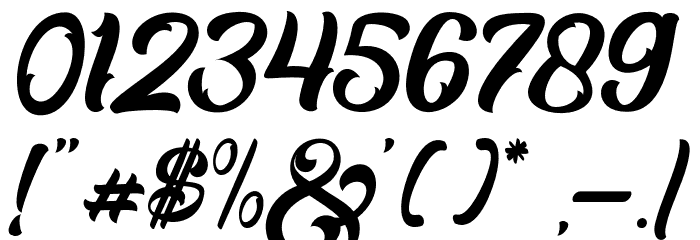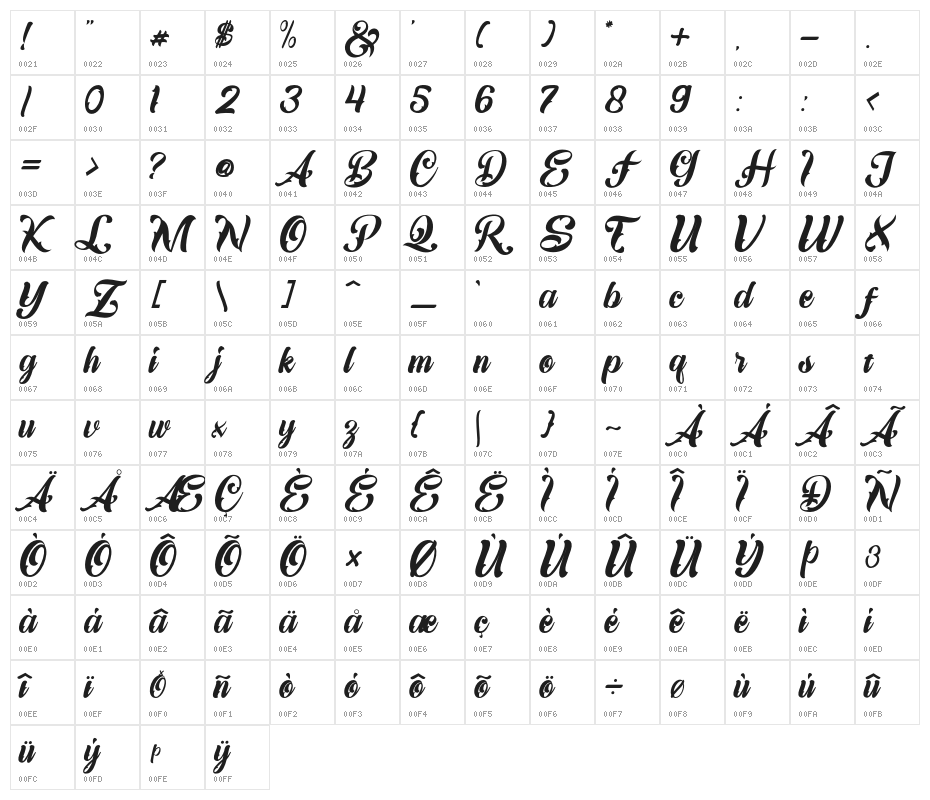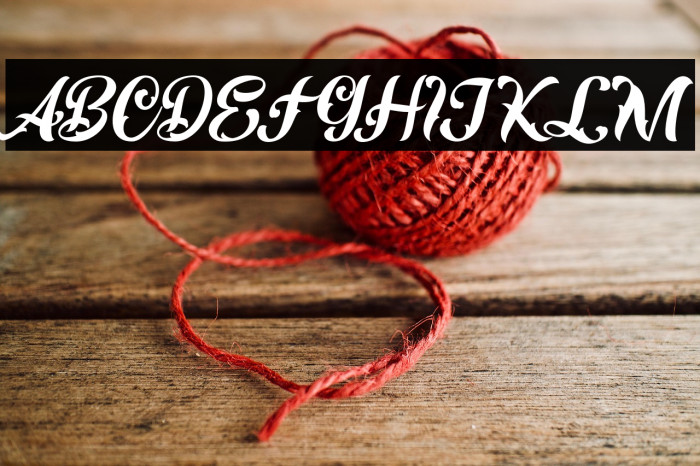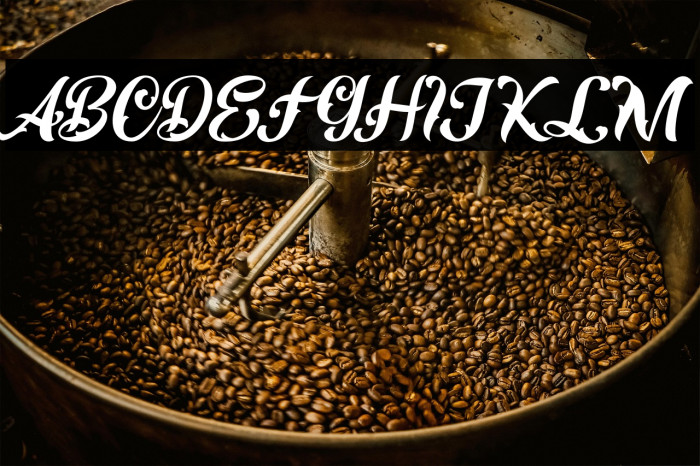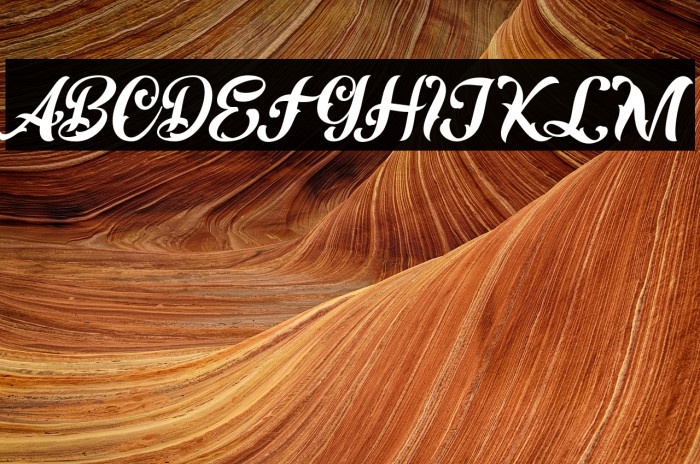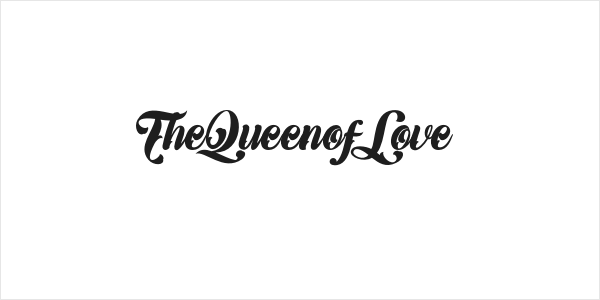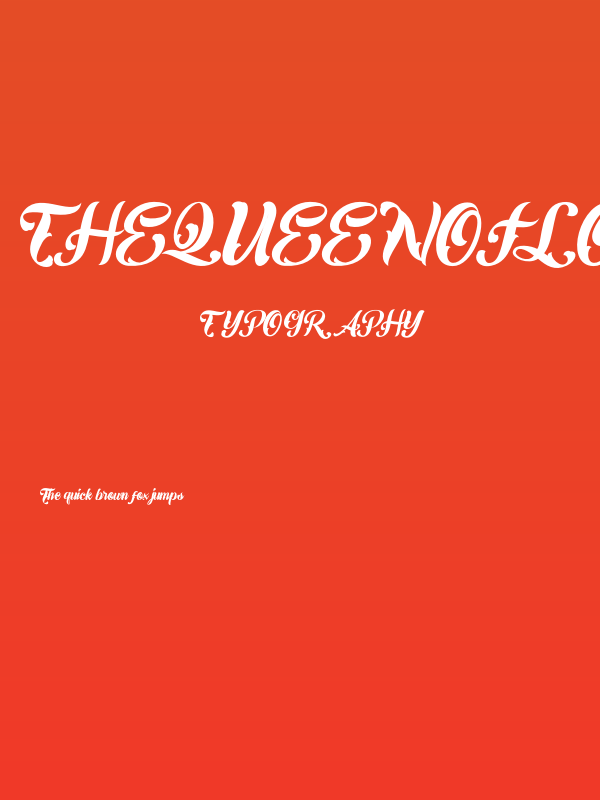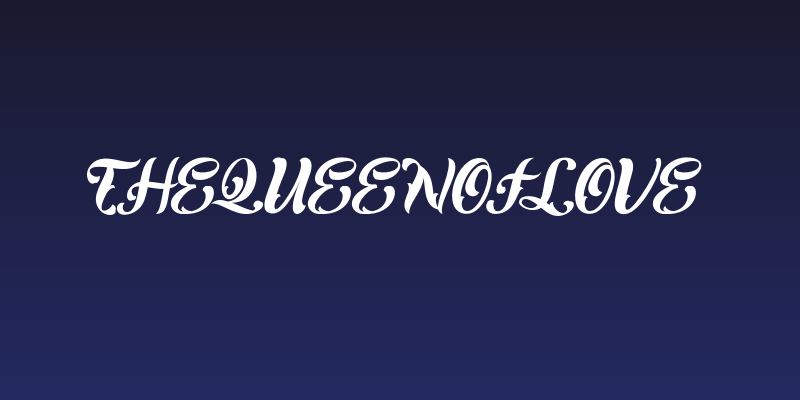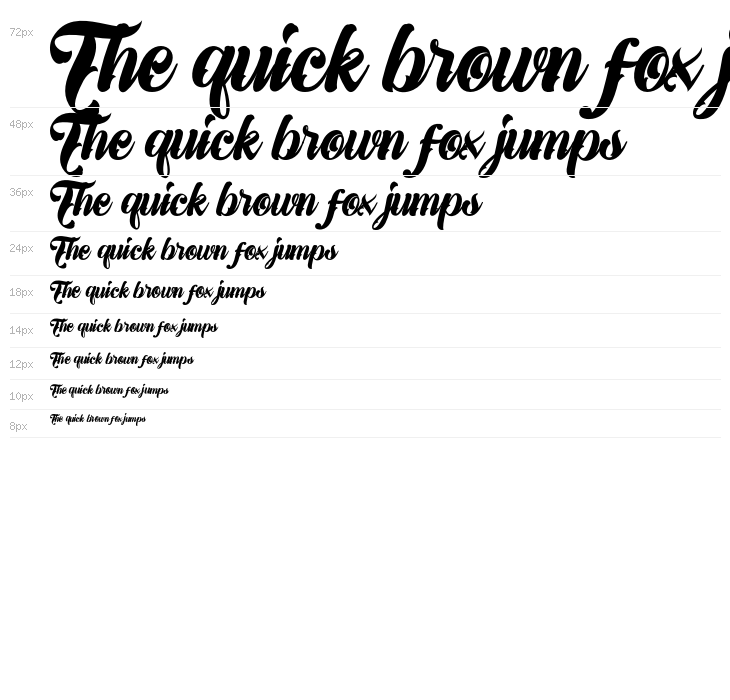
TheQueenofLove Font
TheQueenofLove Description
This font features a bold and expressive script style with elegant, flowing curves and a strong presence. The uppercase letters are ornate, with flourishes that add a touch of sophistication, while the lowercase letters maintain a consistent rhythm and balance. The numerals are equally bold, ensuring readability while maintaining the overall decorative style. Special characters are included, matching the font's dramatic flair. This font is ideal for projects that require a touch of elegance and personality.
| Proposed Projects | Ideal for wedding invitations, branding, logo design, and elegant packaging. |